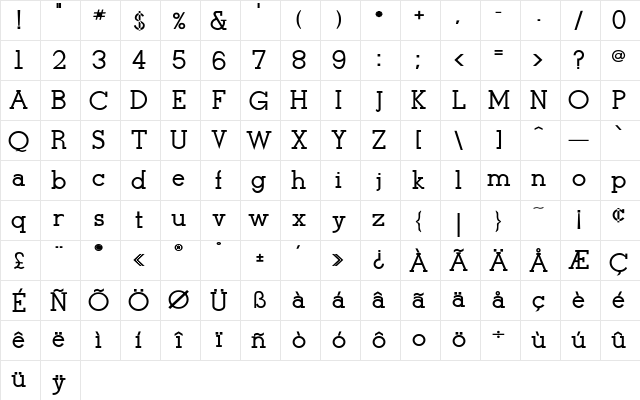
Tulane-Bold Regular
Design Context for Tulane-Bold Typeface
Tulane-Bold is a composed and adaptable typeface that performs quietly and consistently across a wide range of design contexts. The heavy weight commands attention and anchors typographic hierarchies.